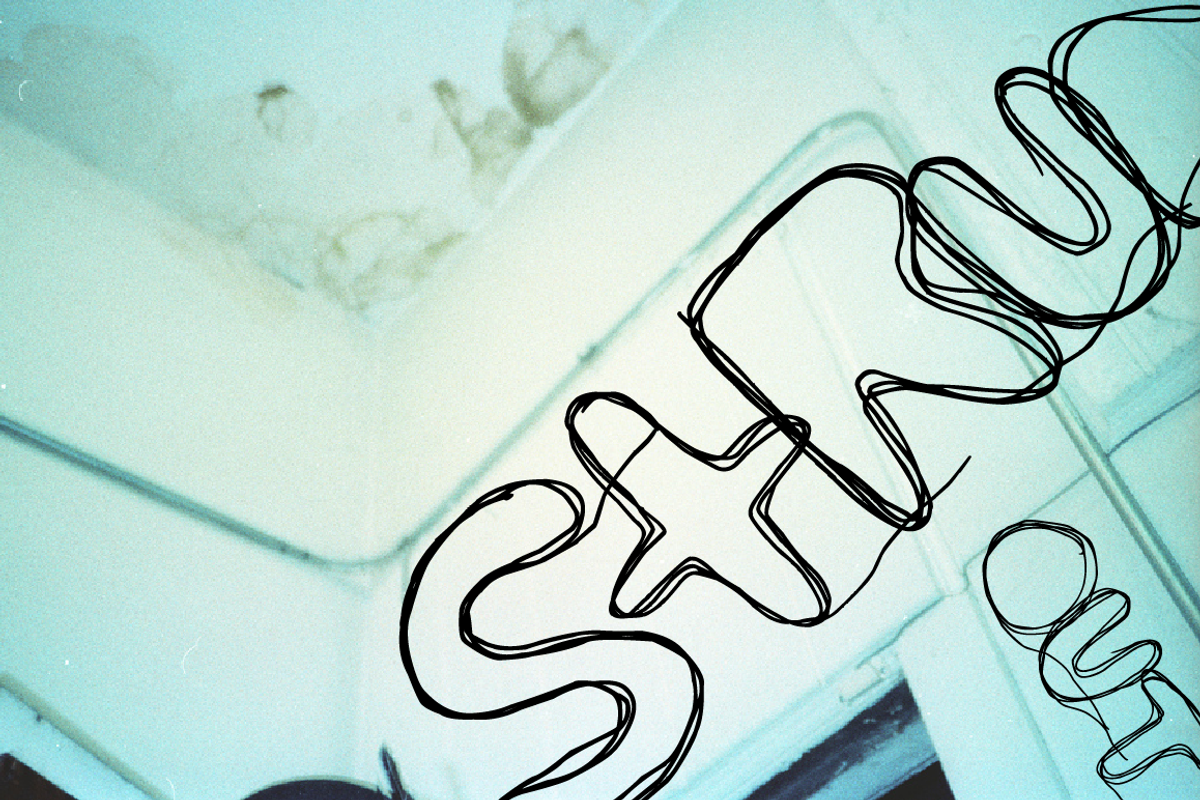
StrungOut
StrungOut by xero fonts is a font selected for branding, posters, packaging, typography.
Why StrungOut is worth a look
StrungOut by xero fonts fits naturally into Branding, posters, packaging, typography.